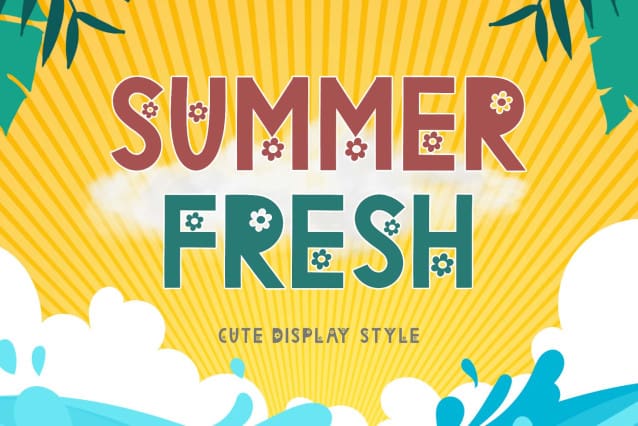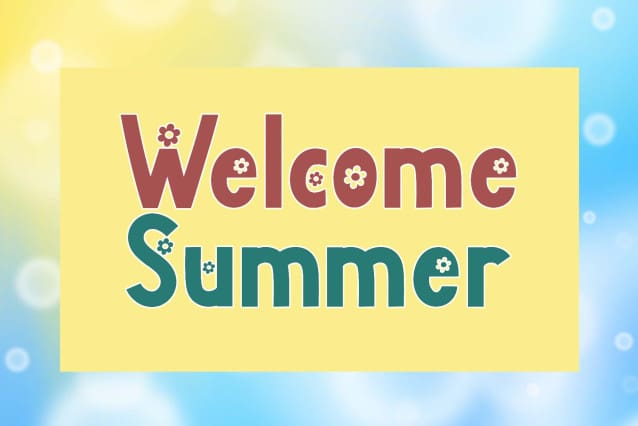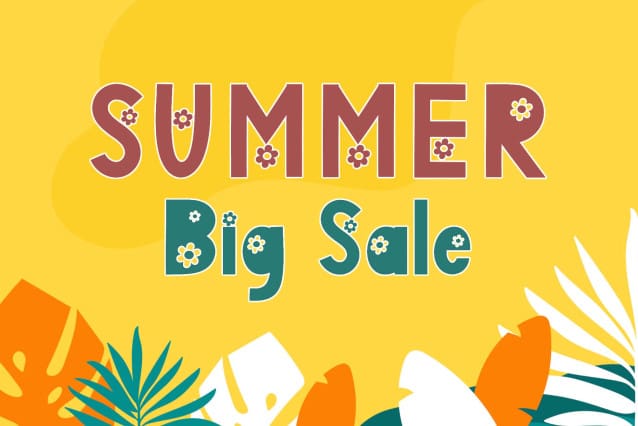
Summer Fresh Font
Summer Fresh Font is a unique and cute display font. This font is equipped with uppercase, lowercase, numerals, punctuations and multilingual support. Very suitable for posters, summer, spring, logos, branding, stickers, SVG, KDP, Procreate, holidays and others.